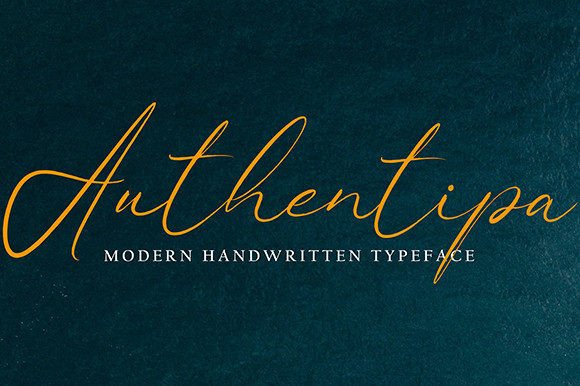
The Ultimate Guide to Authentipa Font: Elevate Your Designs with Style
I’ll never forget the time I was working on a project for a client who needed a unique font to match their brand’s personality. I spent hours scouring the internet for the perfect one, only to come across Authentipa Font. It was love at first sight! The clean lines, elegant curves, and versatility of this font won me over, and I’ve been hooked ever since.
Authentipa Font: A Personal Review
- ✨ Unique Style: Authentipa Font boasts a fresh and modern design that sets it apart from other fonts.
- ✅ Versatility: This font is perfect for a wide range of projects, including quotes, logos, blog headers, posters, branding, letters, invitations, and stationery.
While Authentipa Font is an excellent choice, there are a few minor things to keep in mind:
- ⚠️ Limited Character Set: Some users have reported that the font lacks certain characters, so be sure to check the font files before using it for a project.
- 🤔 Glyph Limitations: Authentipa Font’s glyph set is not as extensive as some other fonts, which might limit its use in certain design applications.
- Experiment with OpenType features, such as ligatures and stylistic alternates, to add visual interest to your design.
The Designer Inspiration Behind Authentipa Font
While the true story behind Authentipa Font’s creation remains a mystery, it’s clear that the designer was inspired by the need for a modern and versatile font that could be used across various design applications. The result is a font that’s both elegant and approachable, making it perfect for a wide range of creative projects.
Q: Is Authentipa Font suitable for body text?
A: While Authentipa Font is elegant and refined, it’s better suited for headings and titles. For body text, consider using a font with better readability.